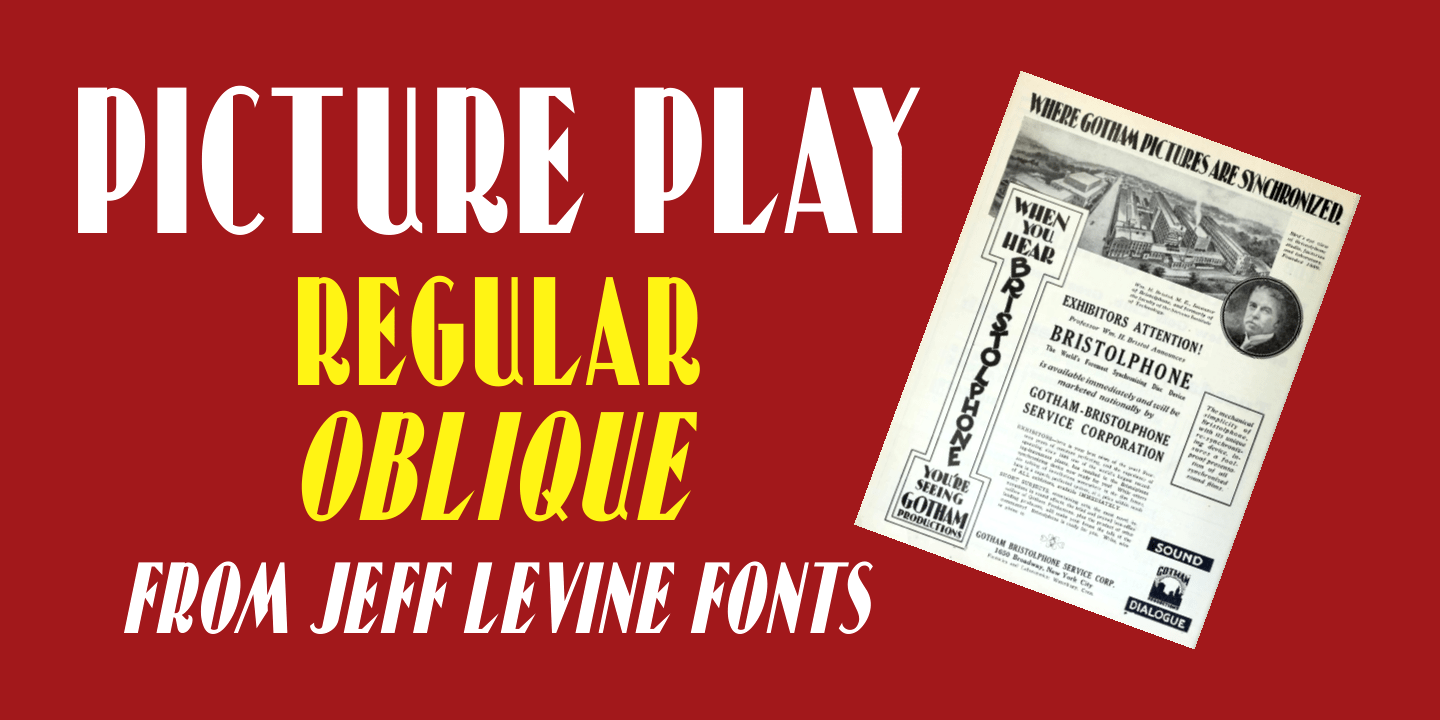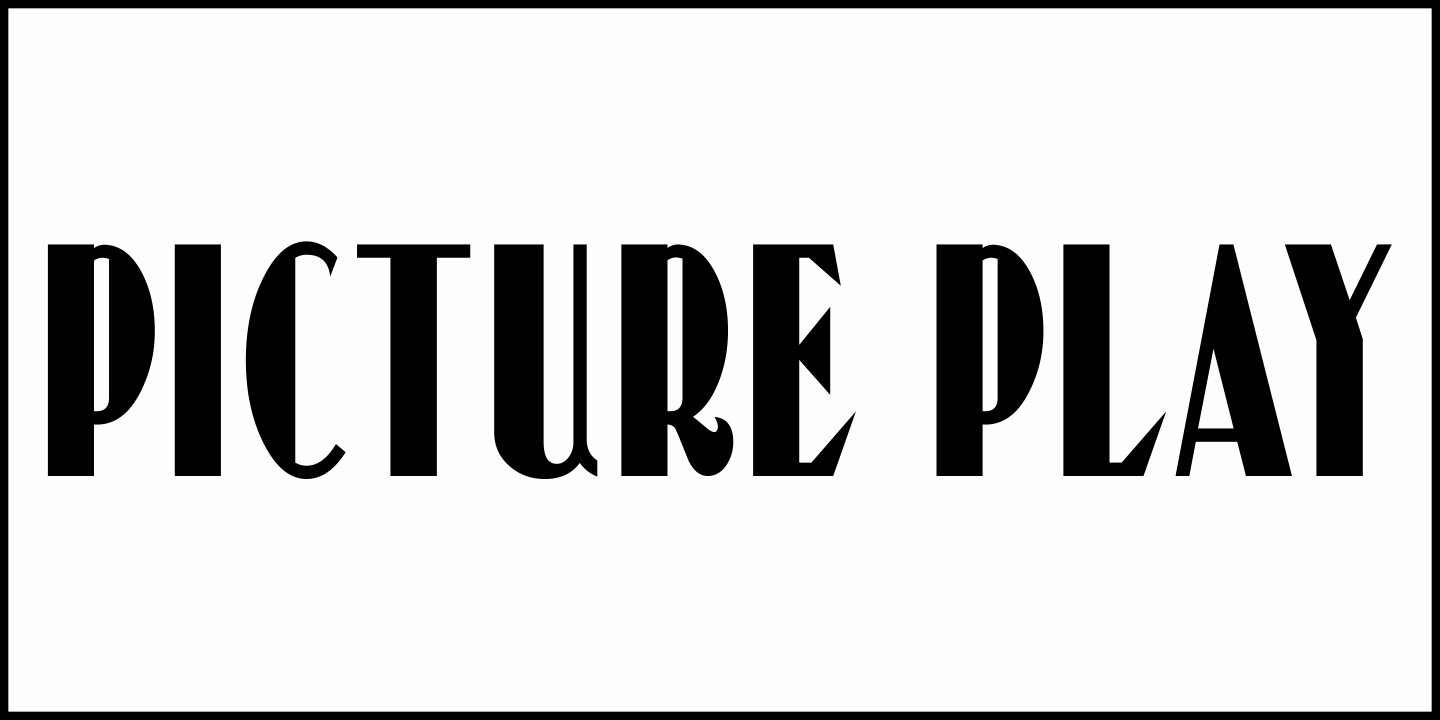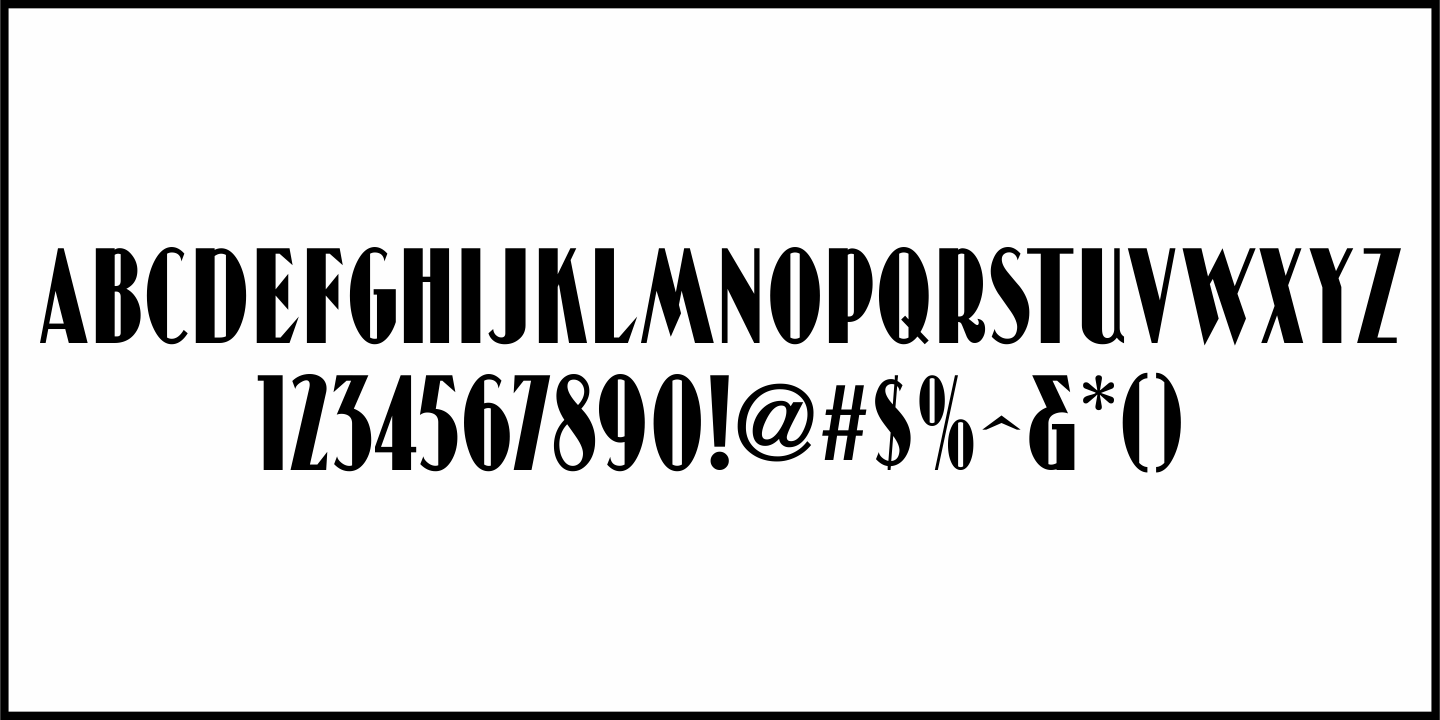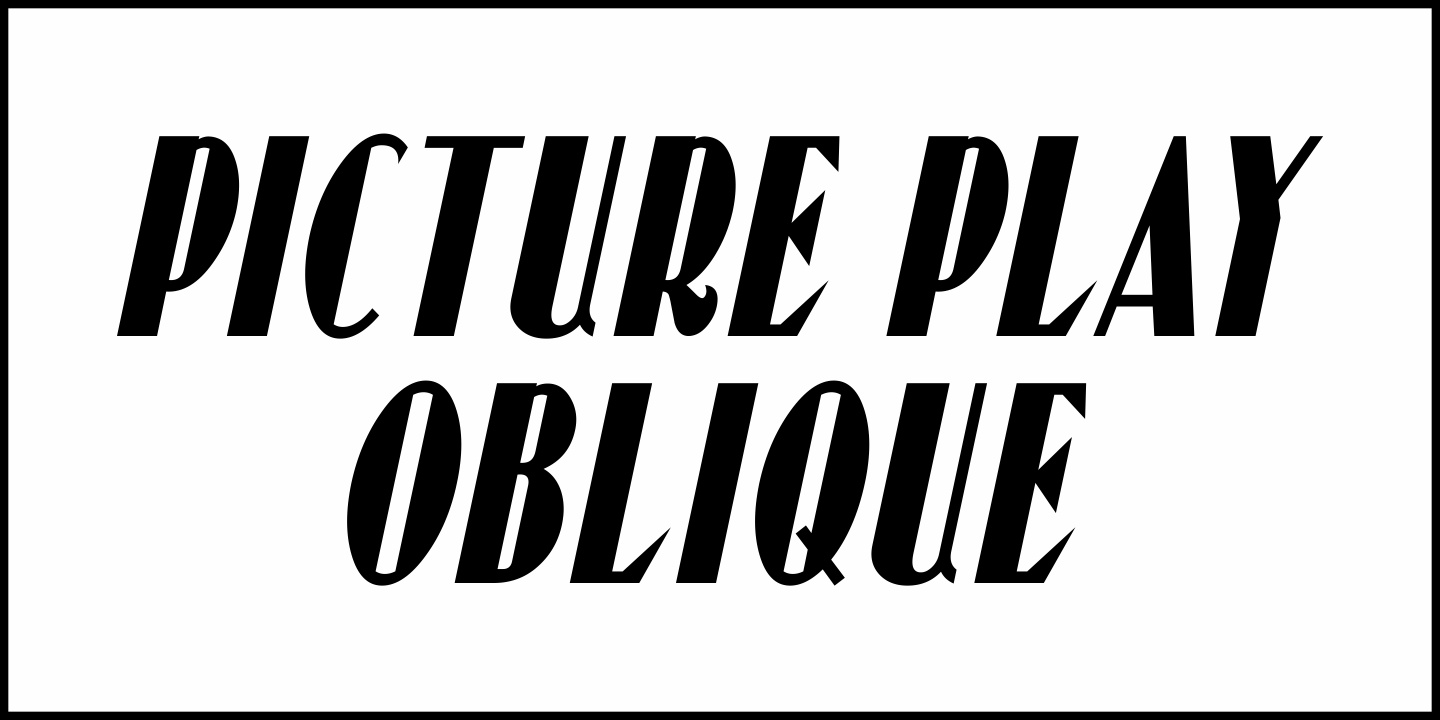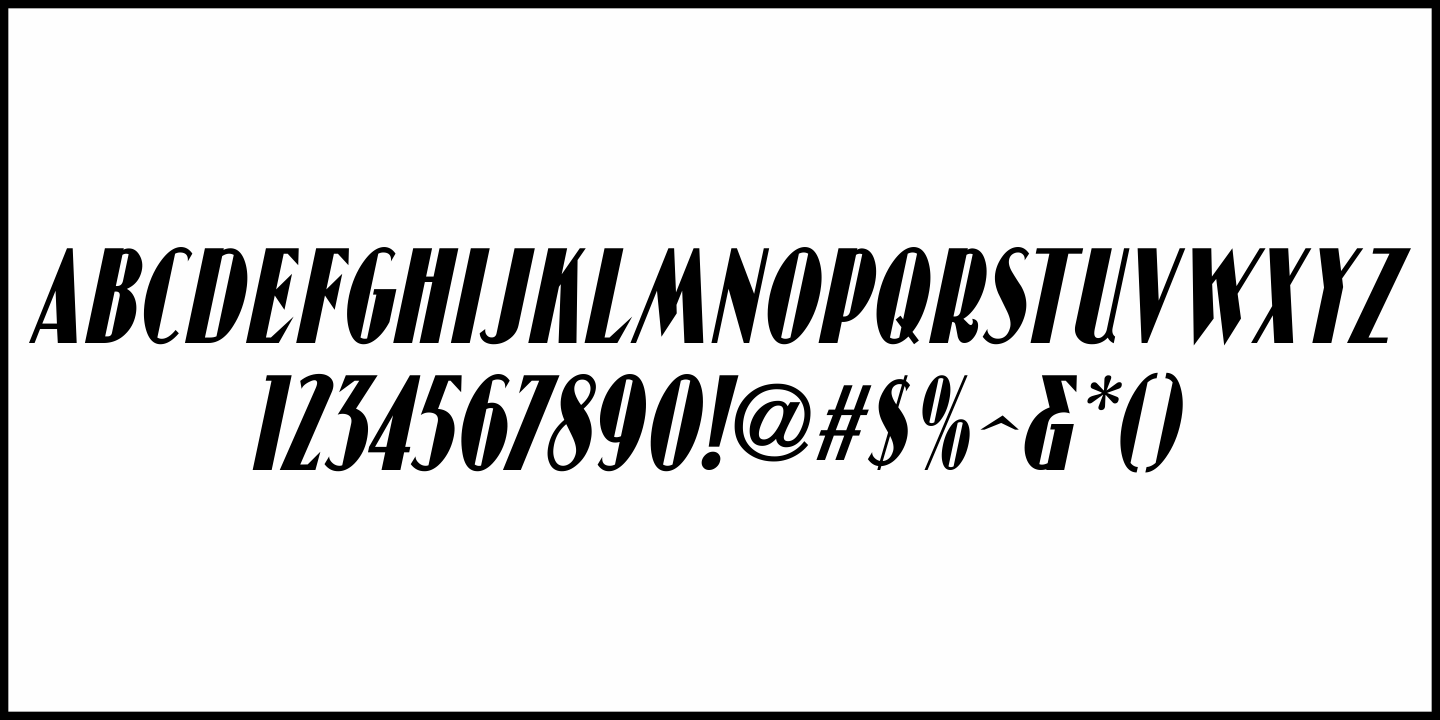
Picture Play
The Sept. 5, 1928 issue of The Film Daily carried an ad for Bristolphone-Gotham Pictures. Part of the text copy was hand lettered in condensed thick-and-thin Art Deco lettering with some stylized embellishments.
This is now available as Picture Play JNL in both regular and oblique versions.